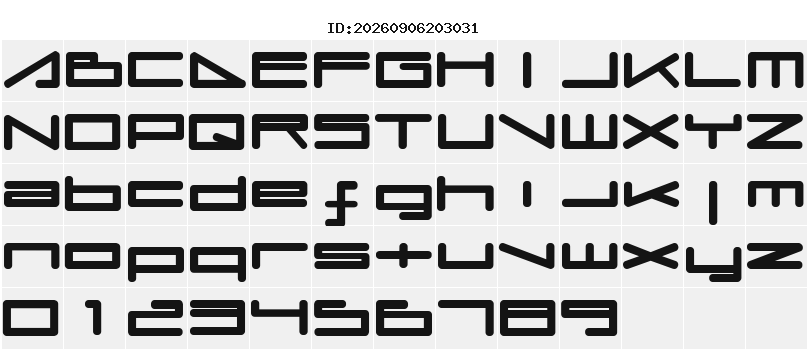
umopMedium Preview
About umopMedium.ttf
umopMedium.ttf is a modern, elegant sans-serif font designed for ultimate readability and visual harmony. Perfect for branding, headlines, web design, and print materials.